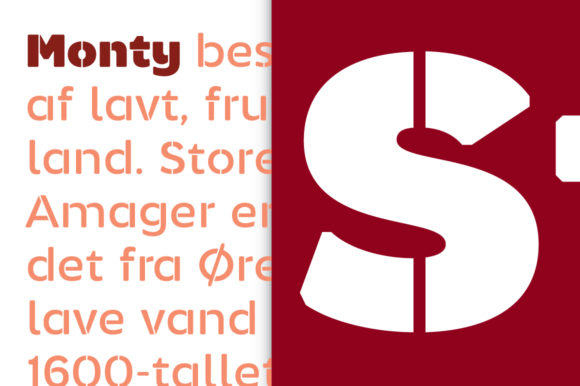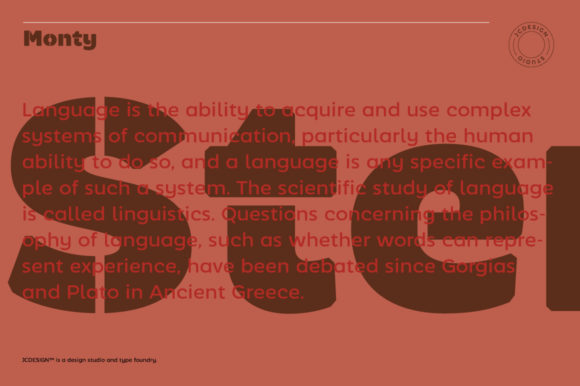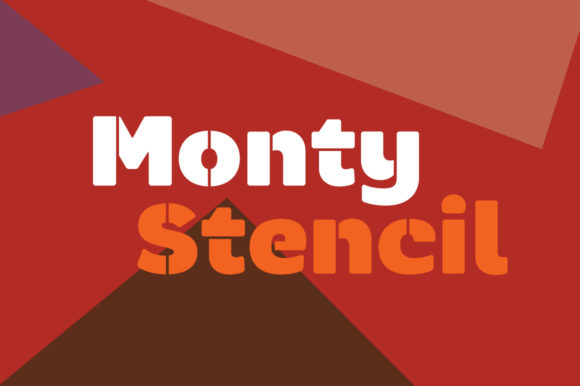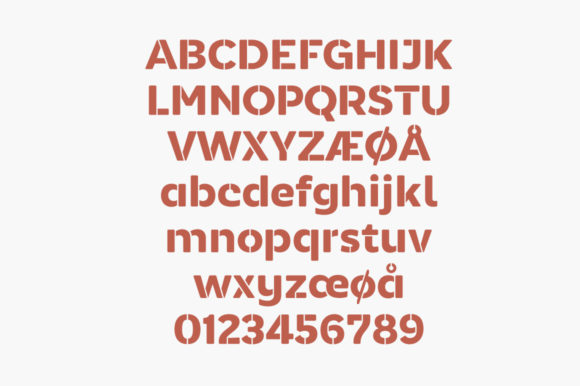
Monty Stencil Font
About the Monty Stencil Font
Unleash your creativity with Monty Stencil Font, a versatile font perfect for a wide range of applications. Monty Stencil is a grotesque sans serif font. Combining softness and beautifully rounded letters, it is an extremely versatile font!
Its rounded forms make Monty Stencil ideal for headlines, short text blocks in branding materials, and eye-catching signage. The font’s friendly, approachable nature works well on packaging for consumer products, especially those targeting a younger demographic. However, its low x-height and relatively large letterforms make it unsuitable for body text or UI elements requiring high readability. Avoid using it for lengthy paragraphs or small sizes.
Pairing Monty Stencil with a clean sans-serif like Helvetica Neue for body copy creates a balanced and modern aesthetic. For a warmer feel, consider pairing it with a serif like Garamond or a script font like Playfair Display for more luxurious applications. The combination depends on the overall mood you wish to project; Helvetica maintains a contemporary edge, while Garamond adds a touch of classic elegance.
Monty Stencil projects a friendly yet bold personality. Its soft curves temper the boldness of the stencil style, resulting in a versatile font that’s both modern and approachable.
Monty Stencil Font Usage Examples
Monty Stencil Font Example